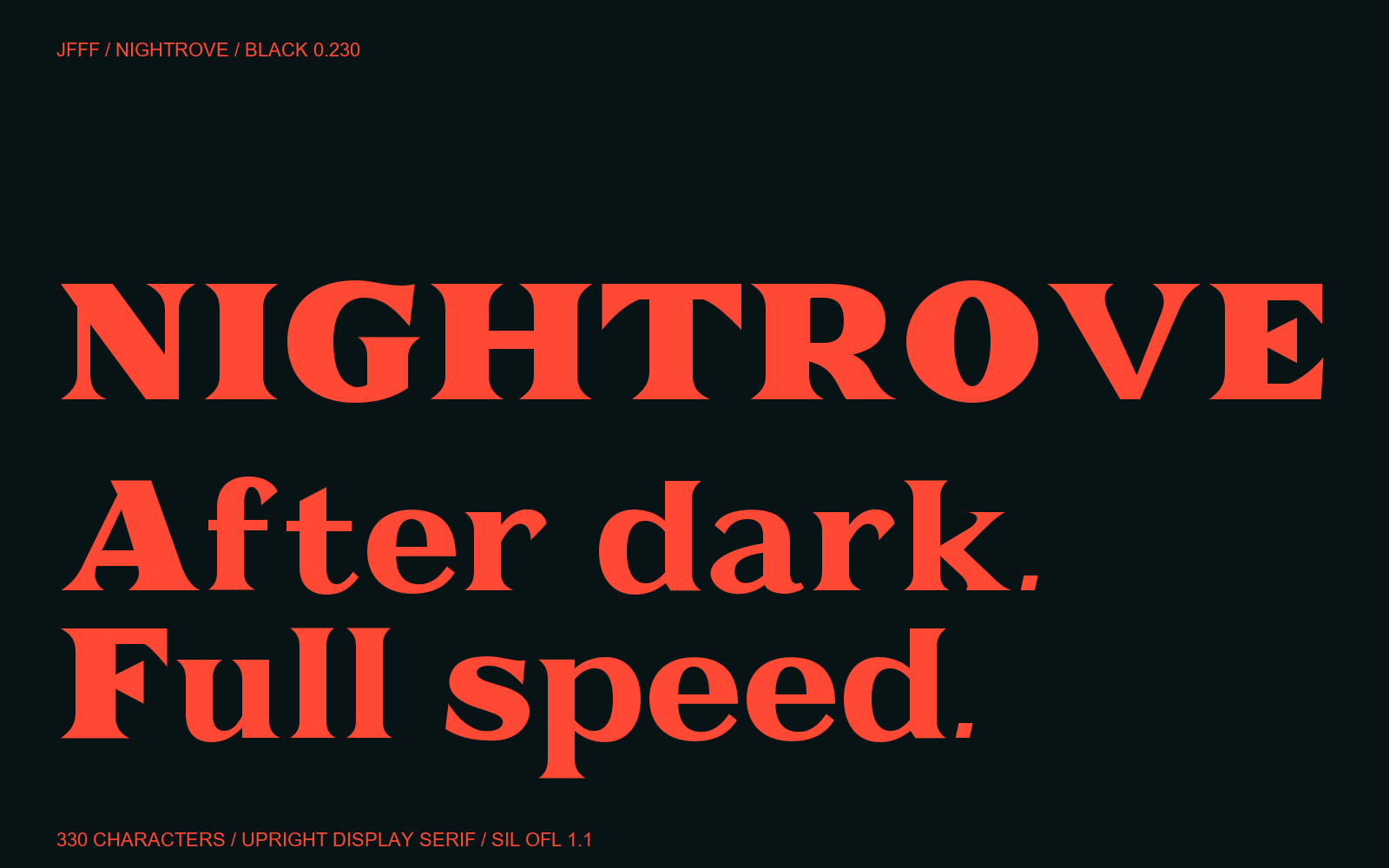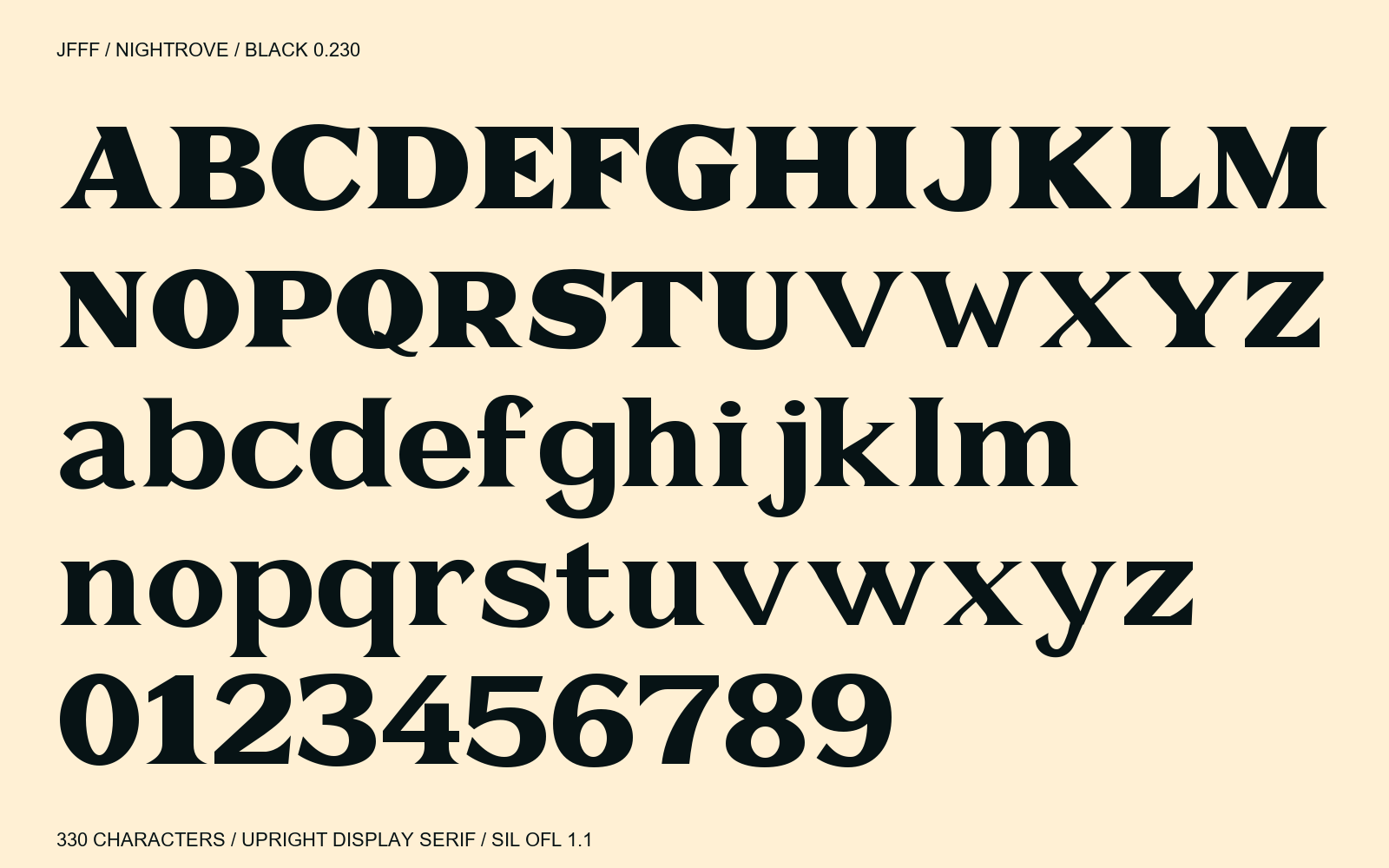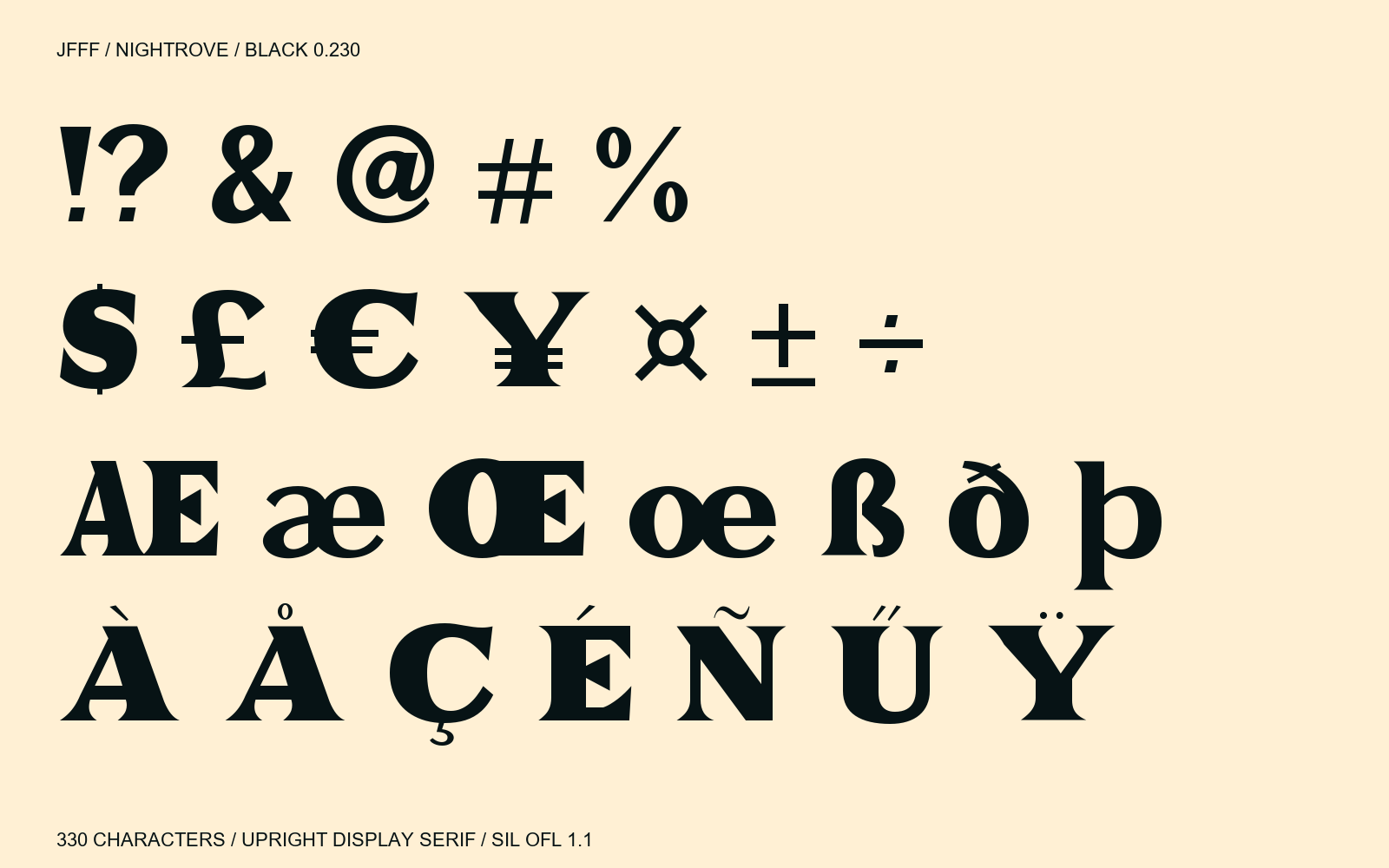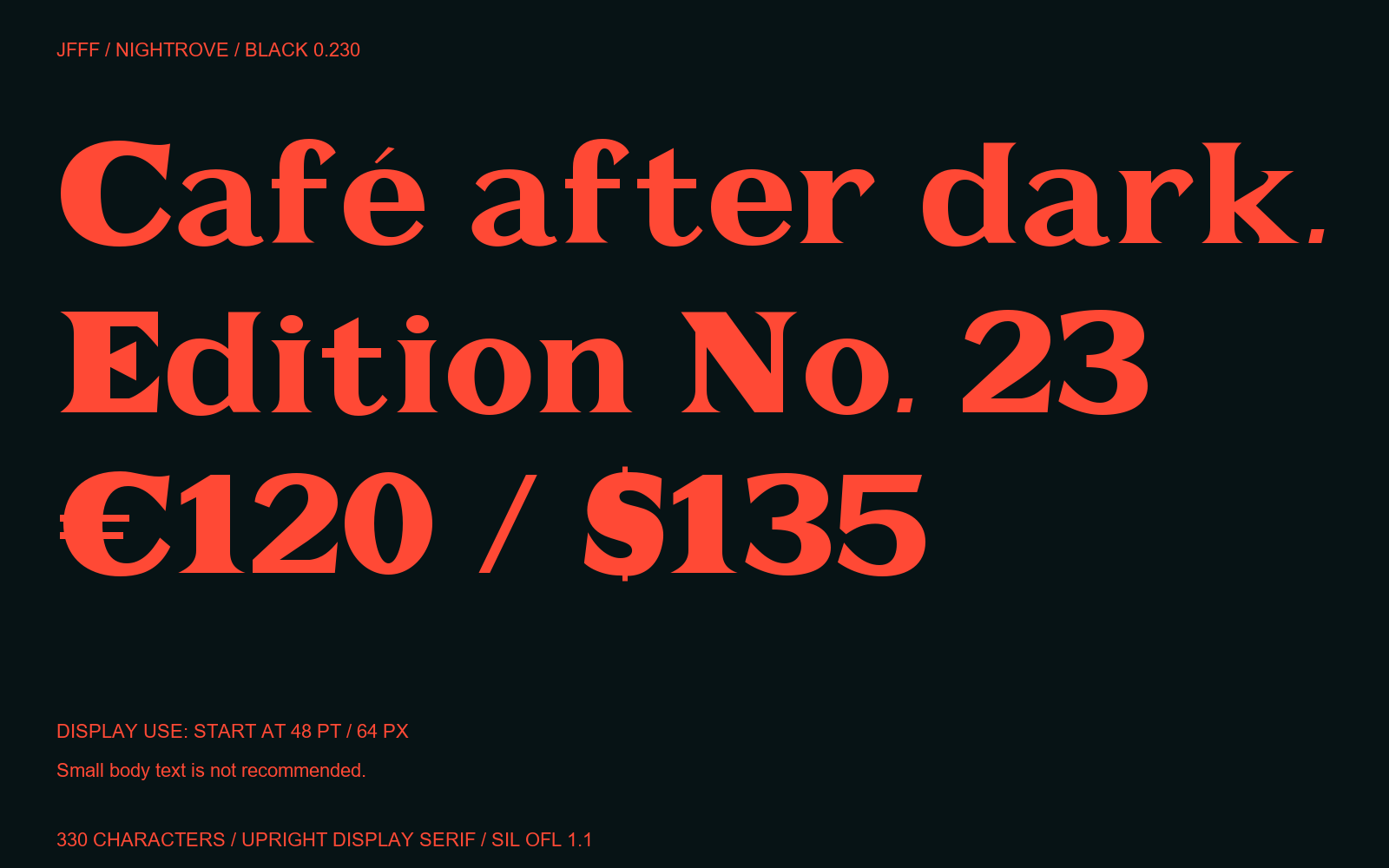
Free high-contrast serif font
After dark. Full speed. Nightrove is an upright black display serif with broad oval forms, deep triangular cuts and strong wedge terminals. Refined lowercase letters, figures and symbols share its heavy rhythm. Designed for posters, packaging and short editorial headlines. Version 0.230 includes 330 encoded characters (including two spaces), covering Basic Latin, Latin-1, Latin Extended-A and selected punctuation. Start at 48 pt / 64 px. Precomposed Latin accents are included; Hangul and independent combining marks are not included. This release refines ae/OE ligatures, eth, sharp s, the at sign, currency sign and standalone accents. Small body text is not recommended. Native editing-app installation and print workflows have not been verified.